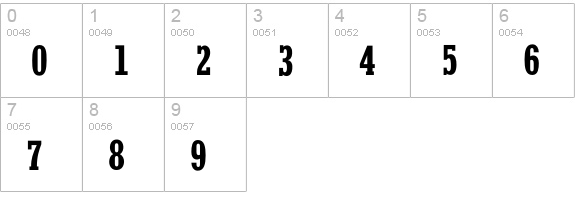
OPTIStymie-BoldCondensed Font Details
OPTIStymie-BoldCondensed font is a stylish and modern typeface that exudes confidence and professionalism. Its bold and condensed design makes it perfect for headlines, titles, and other prominent text elements. The sleek and clean lines of this font give it a contemporary look that is sure to make a statement. Best of all, OPTIStymie-BoldCondensed font is available for free download at FontsMarket.com. This means you can easily add this versatile and eye-catching font to your design projects without any cost. Whether you're creating a logo, poster, flyer, or any other design work, OPTIStymie-BoldCondensed font is a great choice to elevate your typography game. Download it today and unleash your creativity with this fantastic free font!